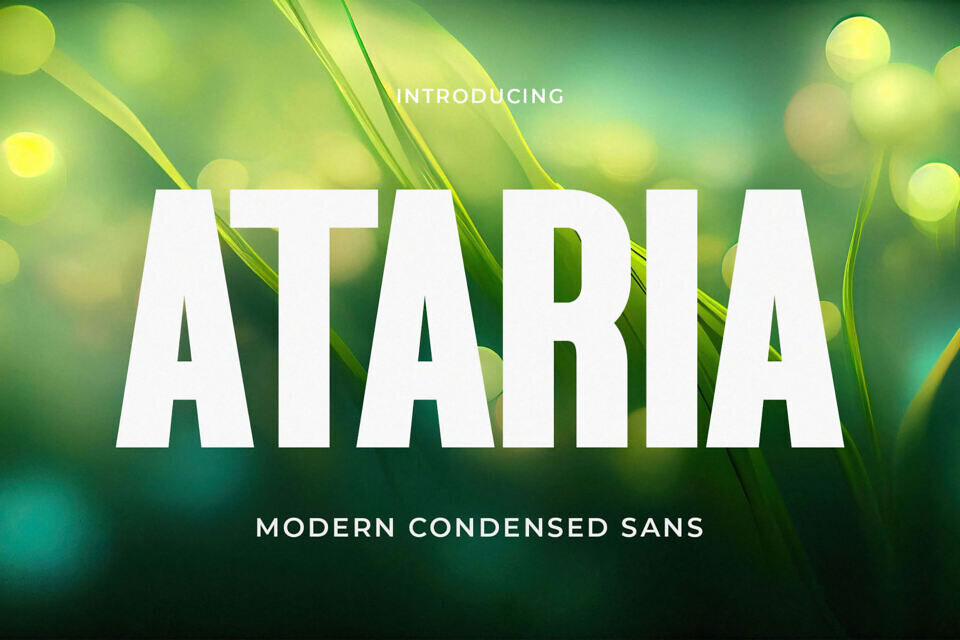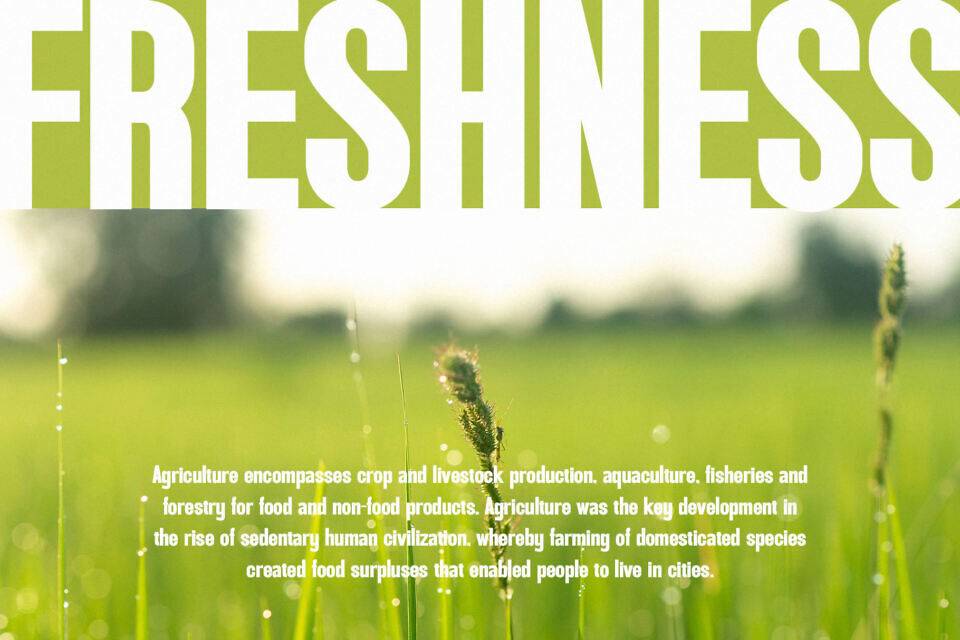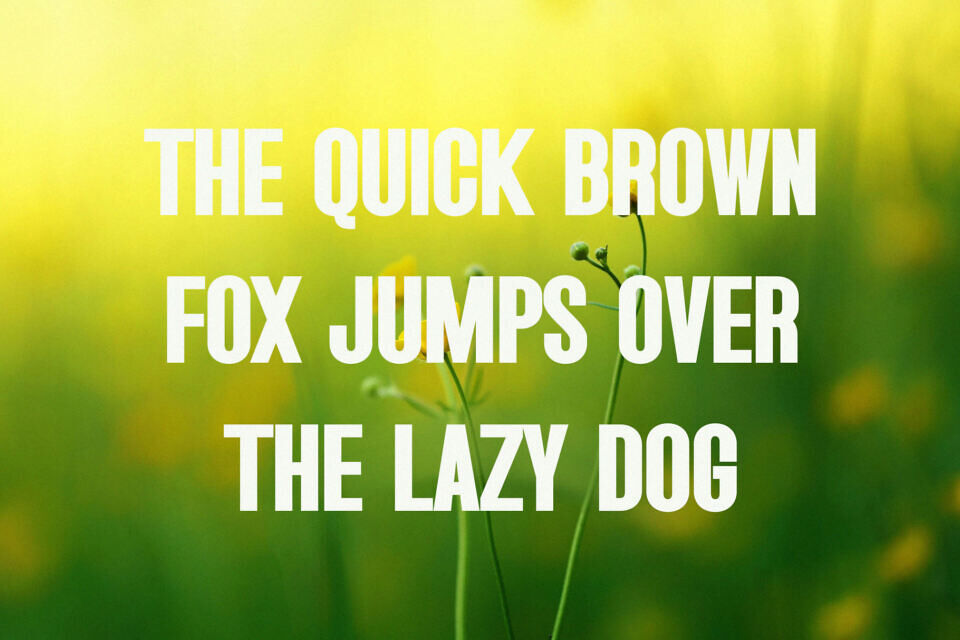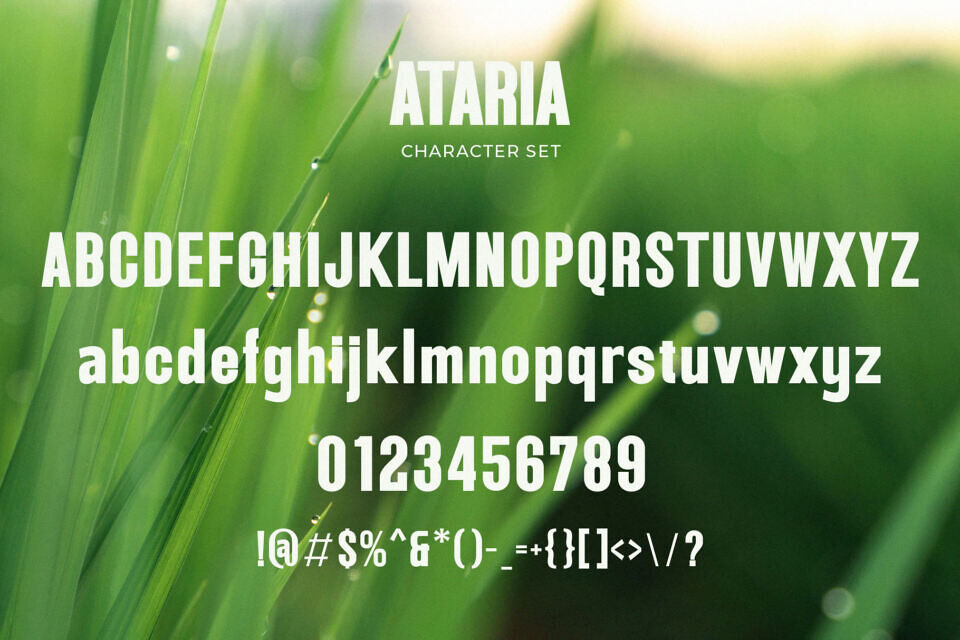
Introducing Ataria by TypeLogue Studio, a modern sans serif font with elegant style this is perfect for branding, logos, invitation, magazines, product packaging and more.